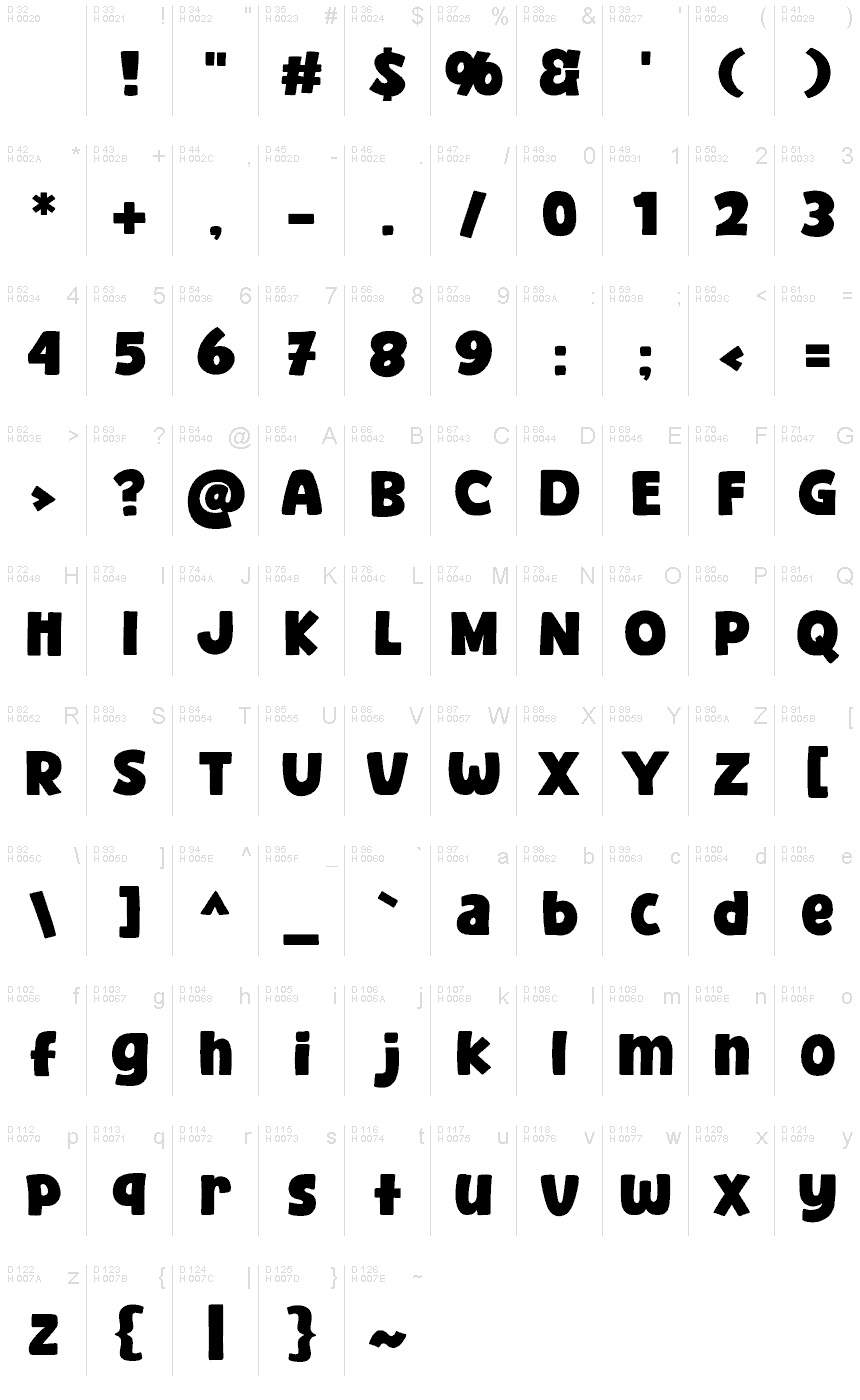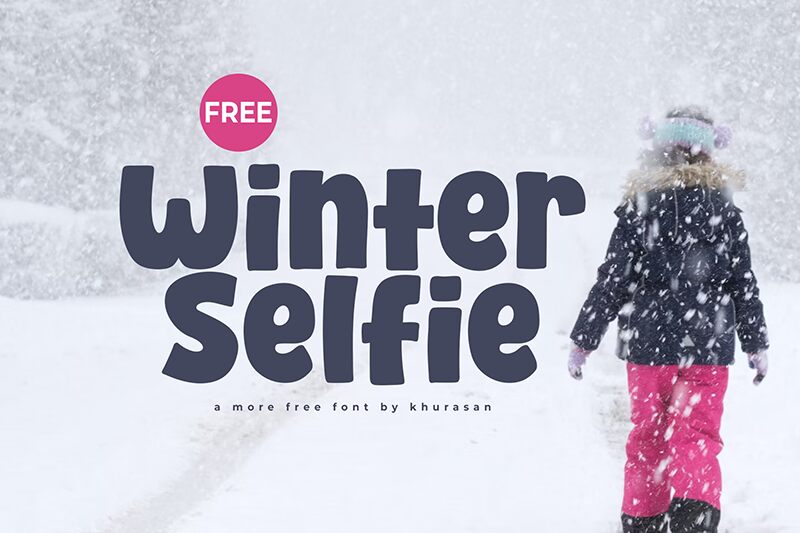
Winter Selfie
Winter Selfie: this is one of the most interesting sans serif fonts available in the modern market. The bold and playful style of the font makes it a perfect option for posters, flyers, logotypes, branding design, headlines, and even headlines.
The font also features smooth round corners that give each letter and numeral a playful look, adding to the fun-loving and lively effect. If this is exactly what you’re looking for, then you can easily download the freebie from Khurasan.